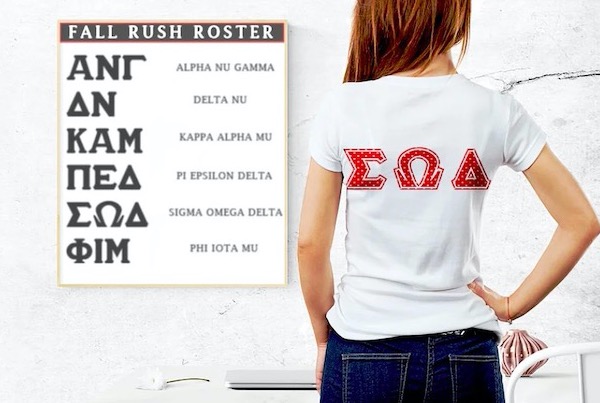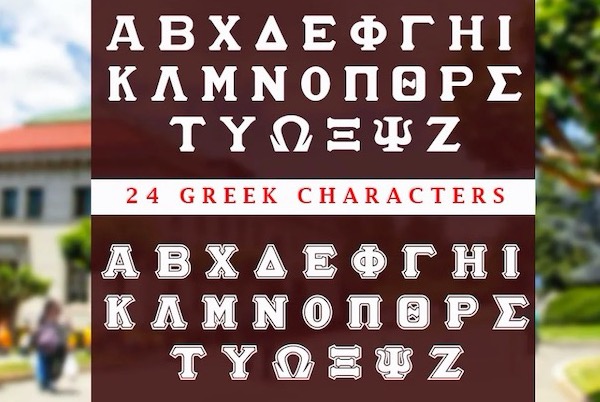
Varsity Greek Lettering Font is a special slab serif font font that was created and shared by Nsmworldwide. It consists of a set of both outline and solid collegiate style lettering in .TTF format. This font is perfect for designing T-shirts, fliers, and other collegiate graphic design schwag. This font is generally made for fraternities but can also be used for sororities.
Varsity Greek Lettering Slab Serif Font
Font family: Varsity Greek Lettering Font
Full font name: Varsity Greek Lettering Font